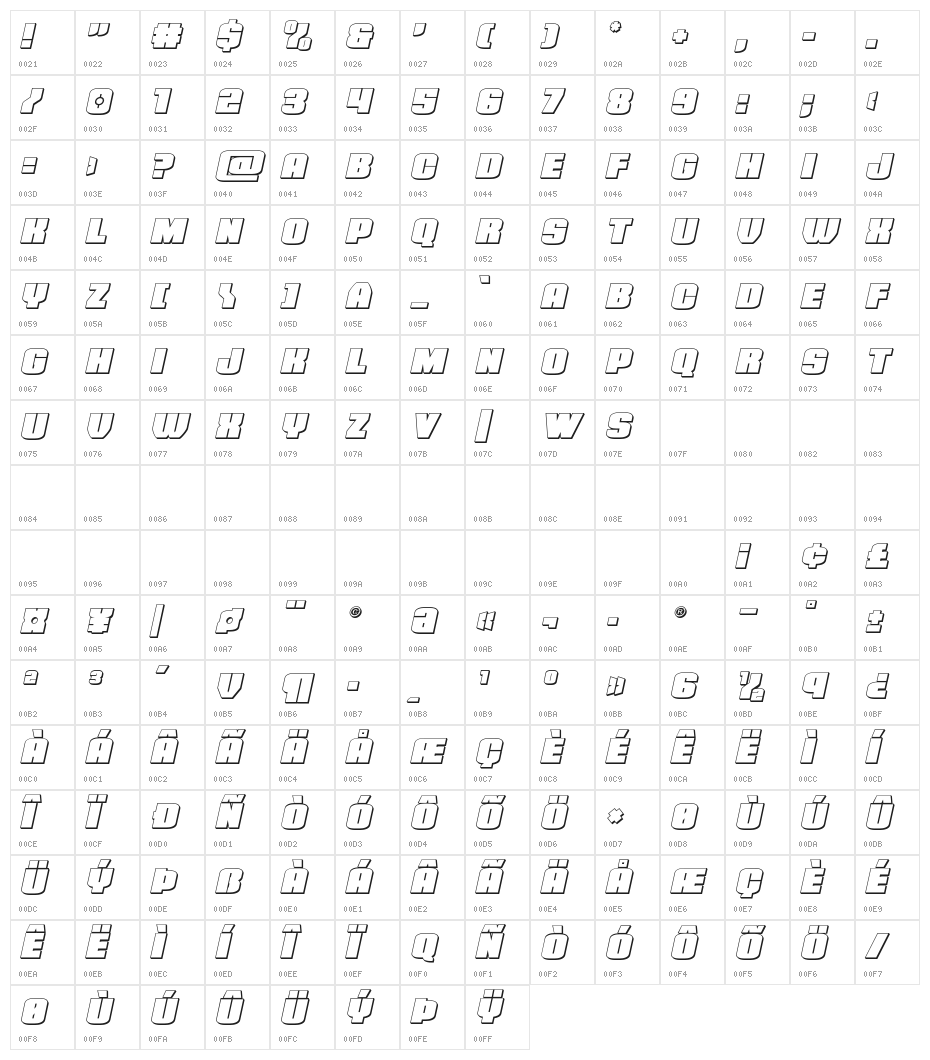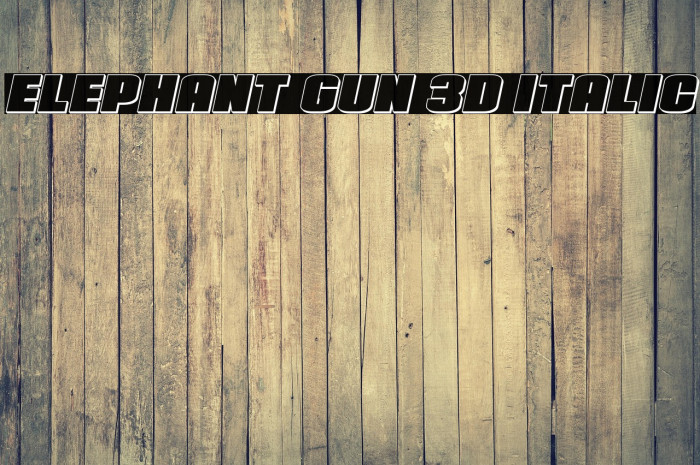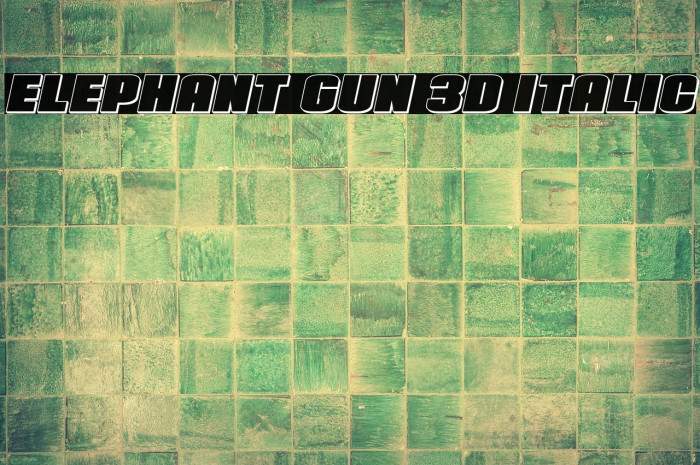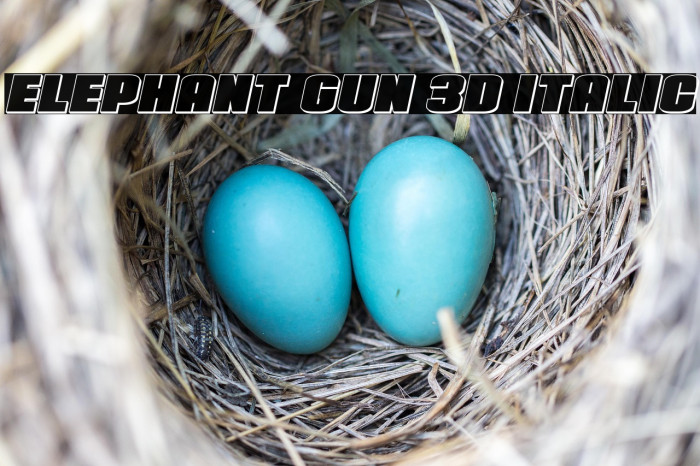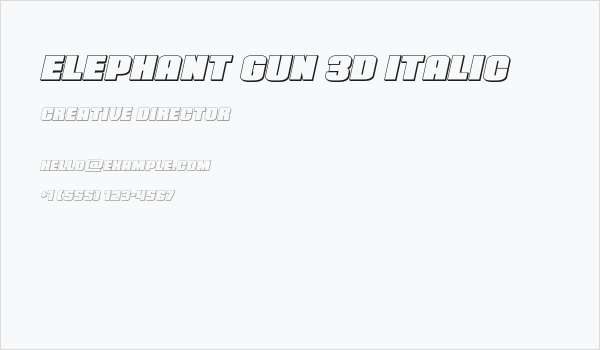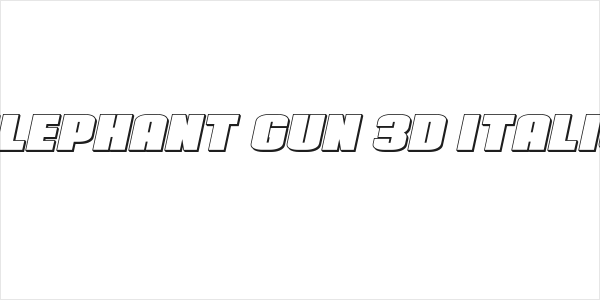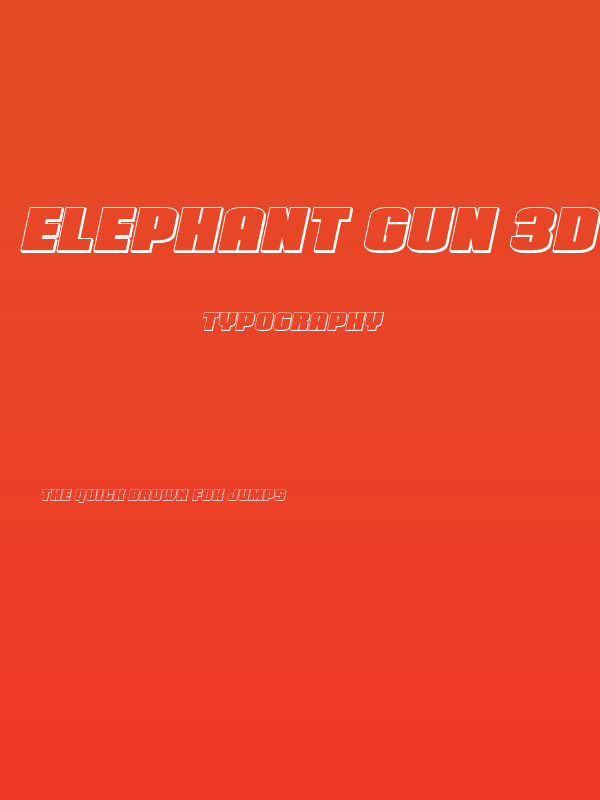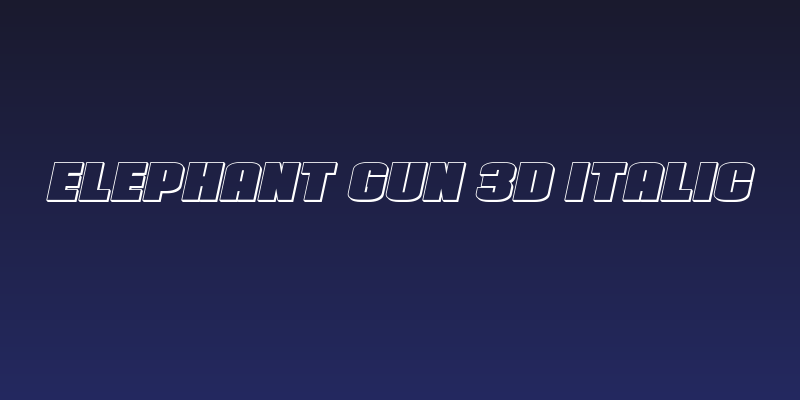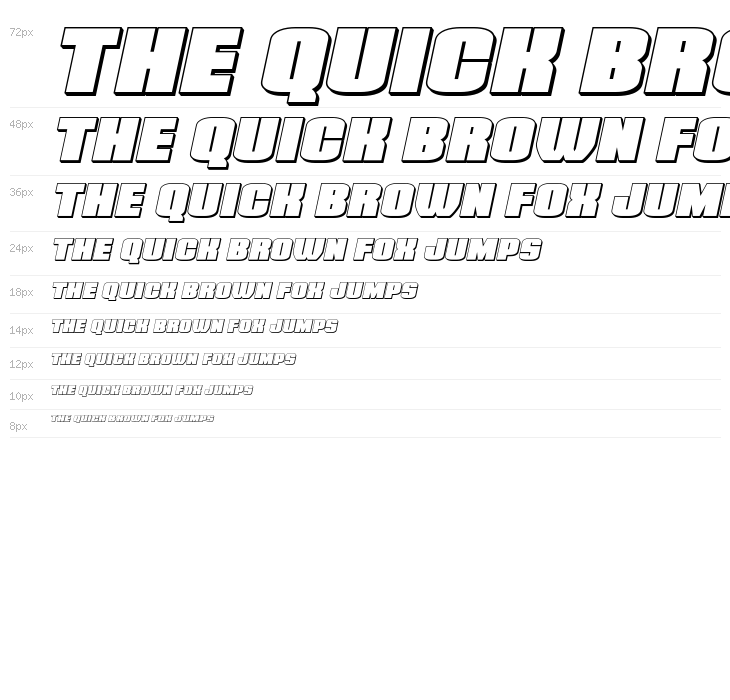
Elephant Gun 3D Italic Font
Elephant Gun 3D Italic Description
This bold, three-dimensional font features a strong, impactful design with a distinct italic slant. The characters are outlined, giving them a striking appearance that stands out. The uppercase and lowercase letters maintain a consistent style, with a robust and solid structure that conveys a sense of power and modernity. The numbers and special characters are designed to match the boldness and style of the alphabet, ensuring a cohesive look across all text. The font's 3D effect is achieved through a clever use of shading and perspective, adding depth and dimension to the characters.